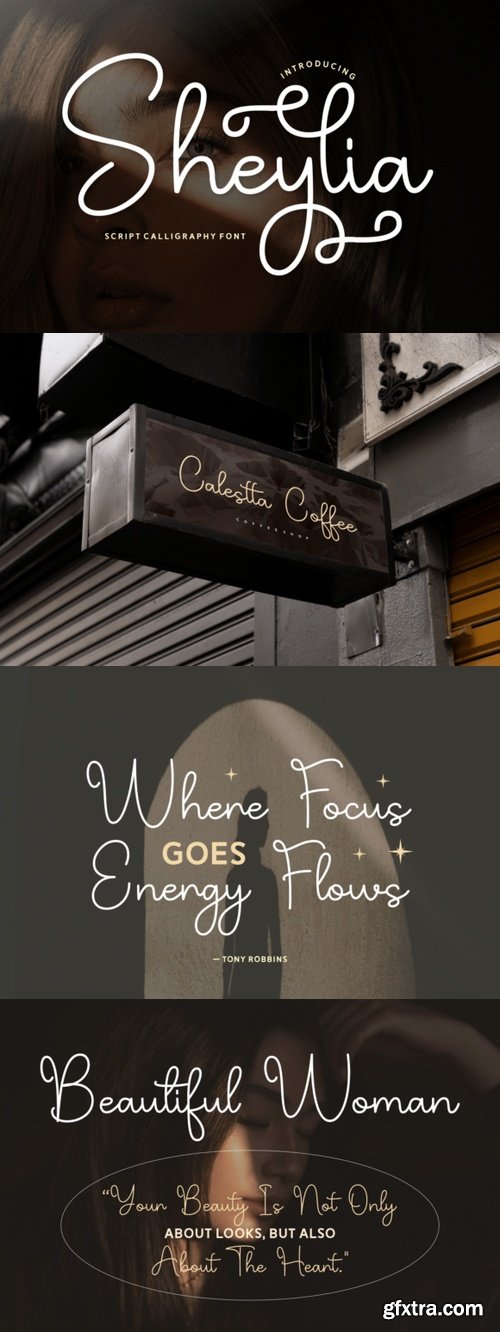
Sheylia Font
• Sheylia is a stylish script calligraphy font that exudes elegance and artistry. With its soft loops, refined curves, and charming swashes, Sheylia is perfect for wedding invitations, high-end branding, social media graphics, and beauty packaging. It captures attention while maintaining a graceful, feminine flow—ideal for designs that need a sophisticated, personal touch.